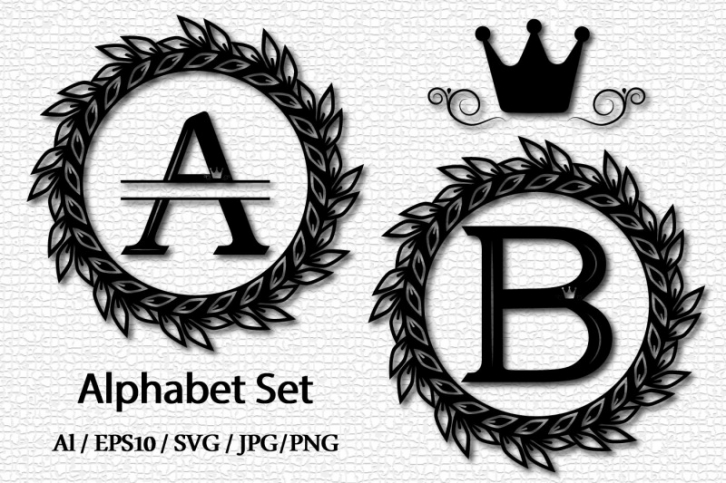
Set of the alphabet with a wreath of leaves Font Download
Set of the alphabet with a wreath of leaves, the letters are carved with a pattern in the form of a crown and a monogram of a divided font in a frame. It can be used as a decor of tableware, clothing, accessories, as a logo, in scrapbooking, laser cutting.